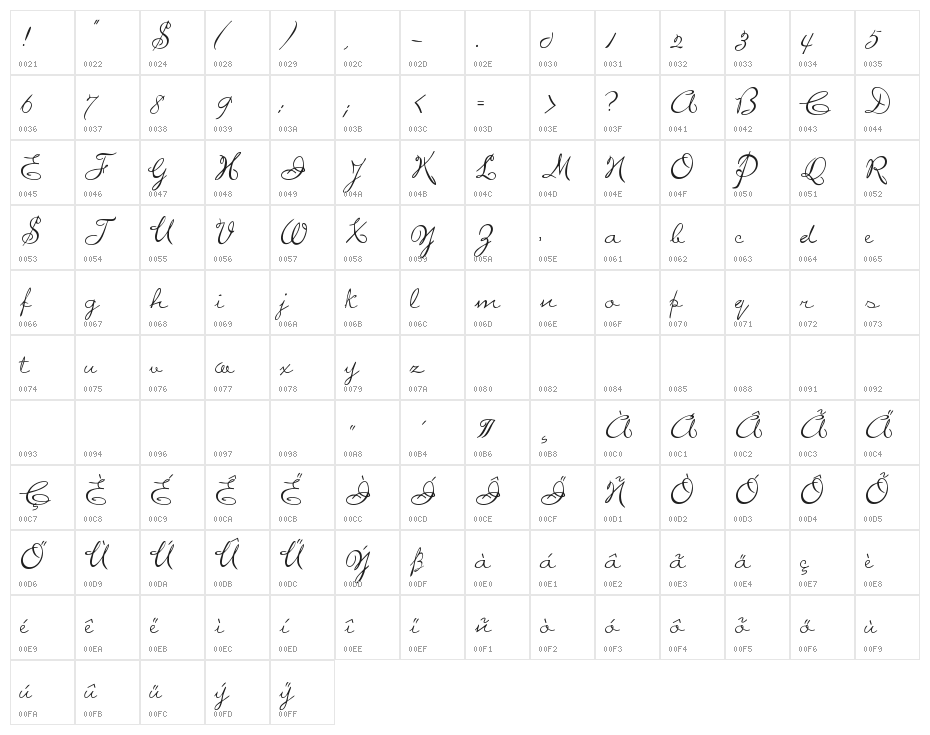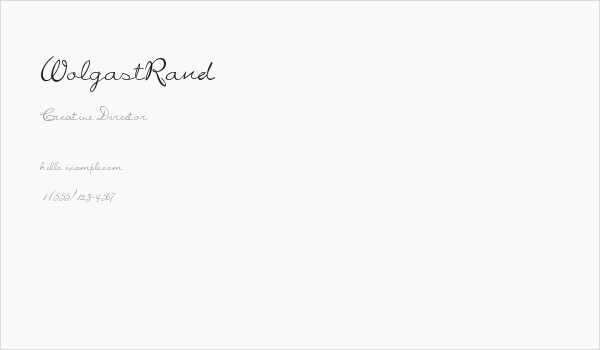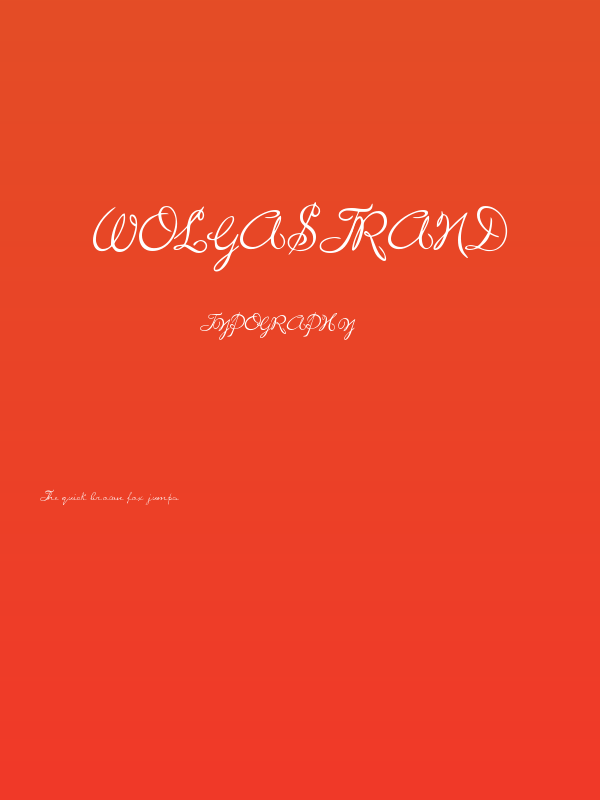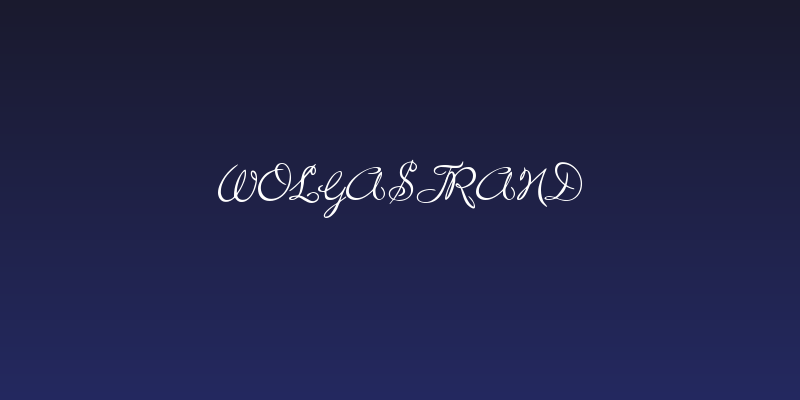
WolgastRand Font
WolgastRand Description
This elegant script font features a flowing, cursive style with intricate loops and flourishes. The uppercase letters are particularly ornate, with each character exhibiting unique swirls and embellishments that add a touch of sophistication. The lowercase letters maintain a consistent slant, enhancing the font's fluidity and grace. Numbers and special characters are designed with the same attention to detail, ensuring a cohesive look across all text elements. The font's overall appearance is both classic and stylish, making it suitable for a variety of formal and decorative applications.
| Proposed Projects | Ideal for wedding invitations, elegant branding, personal stationery, and decorative signage. |